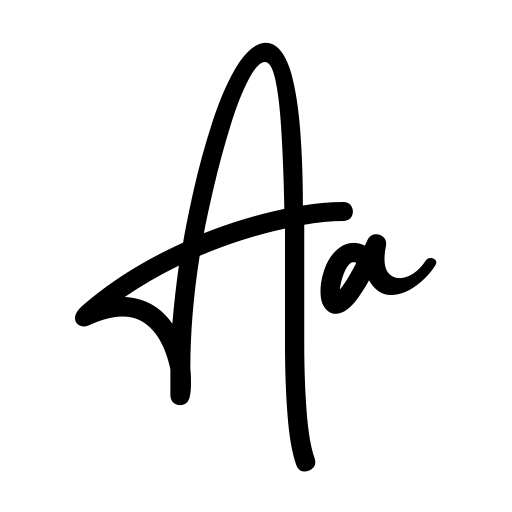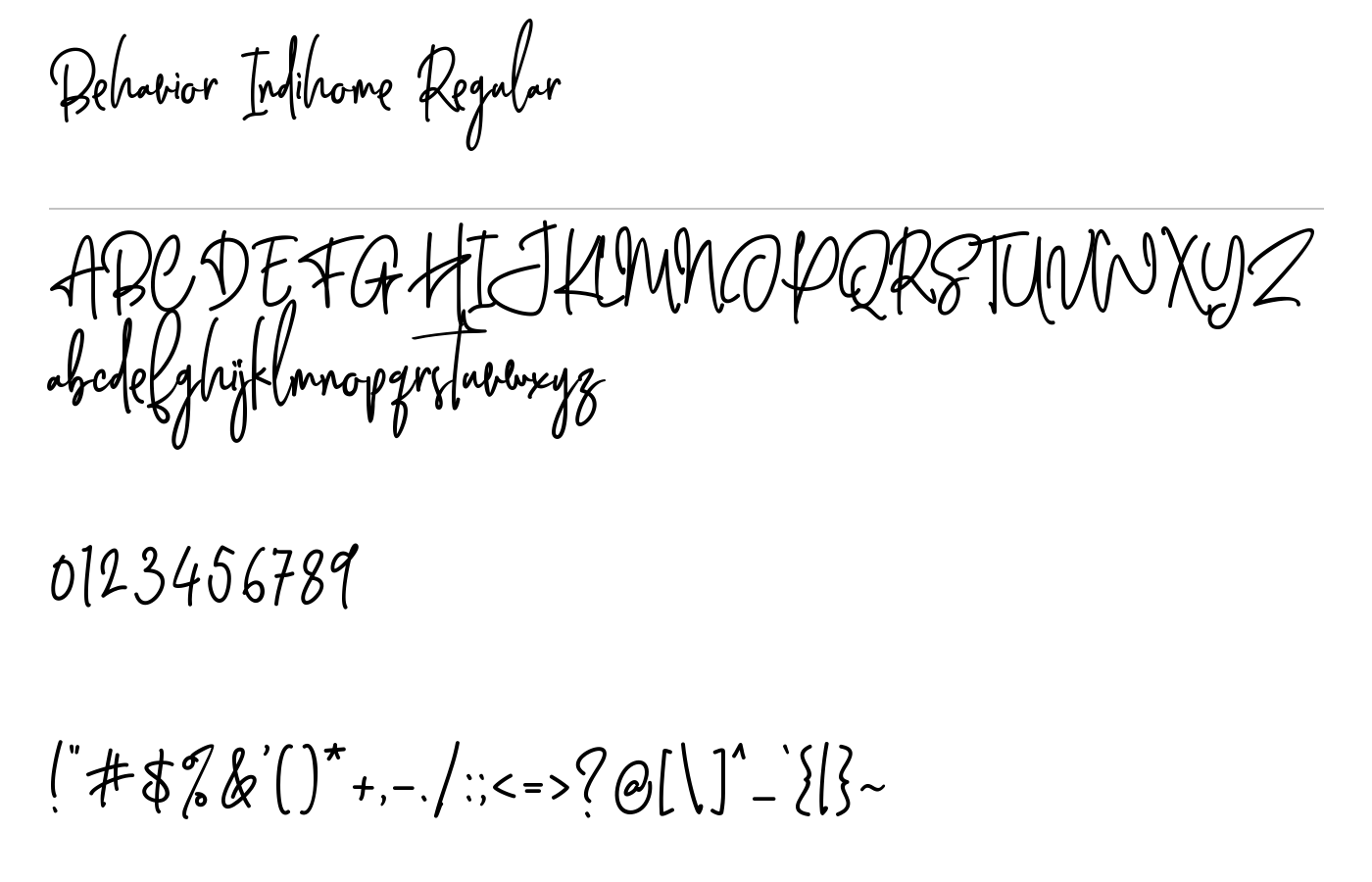
Behavior Indihome is a casual, handwritten script font with a lively and organic feel, characterized by its tall, narrow letterforms and varying stroke thicknesses that mimic natural pen strokes. Its playful yet elegant style makes it a great choice for creative branding, invitations, and expressive headlines where a personal, artistic touch is desired. This font works well in designs needing a modern, informal vibe that still maintains clarity and charm.
Behavior Indihome Font
About Behavior Indihome Font